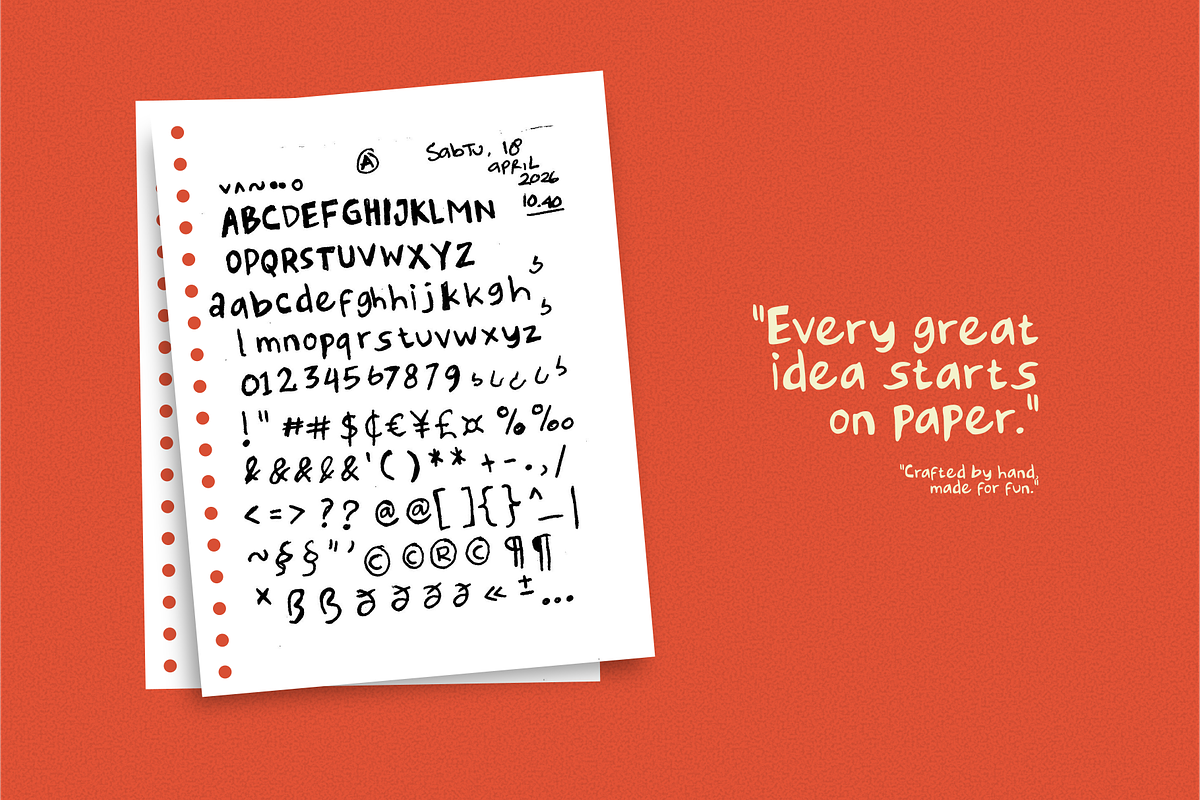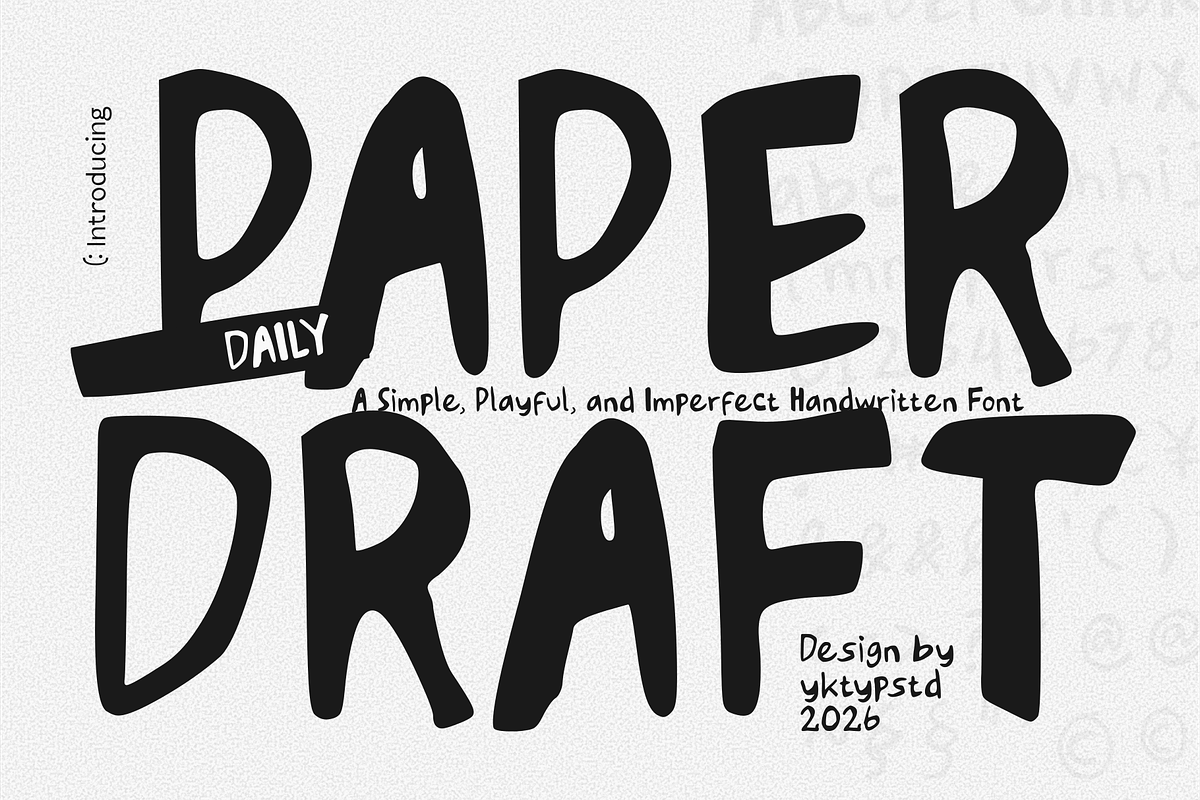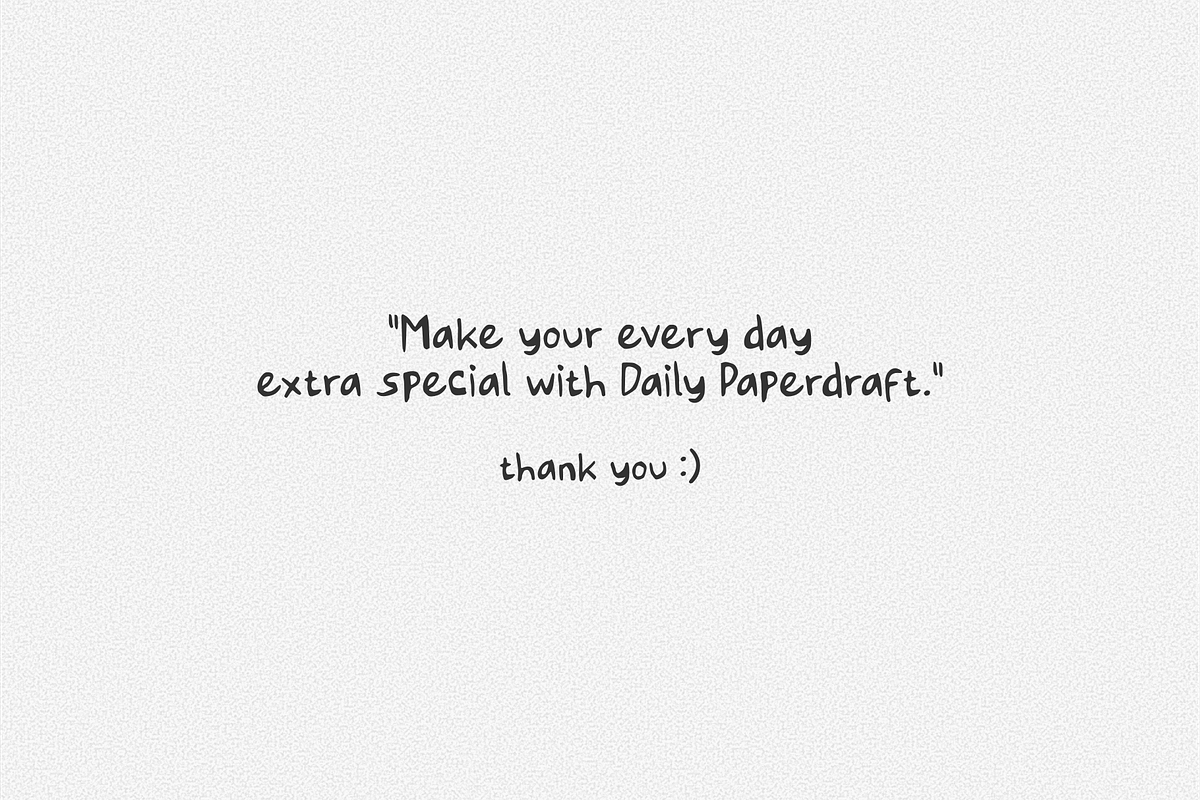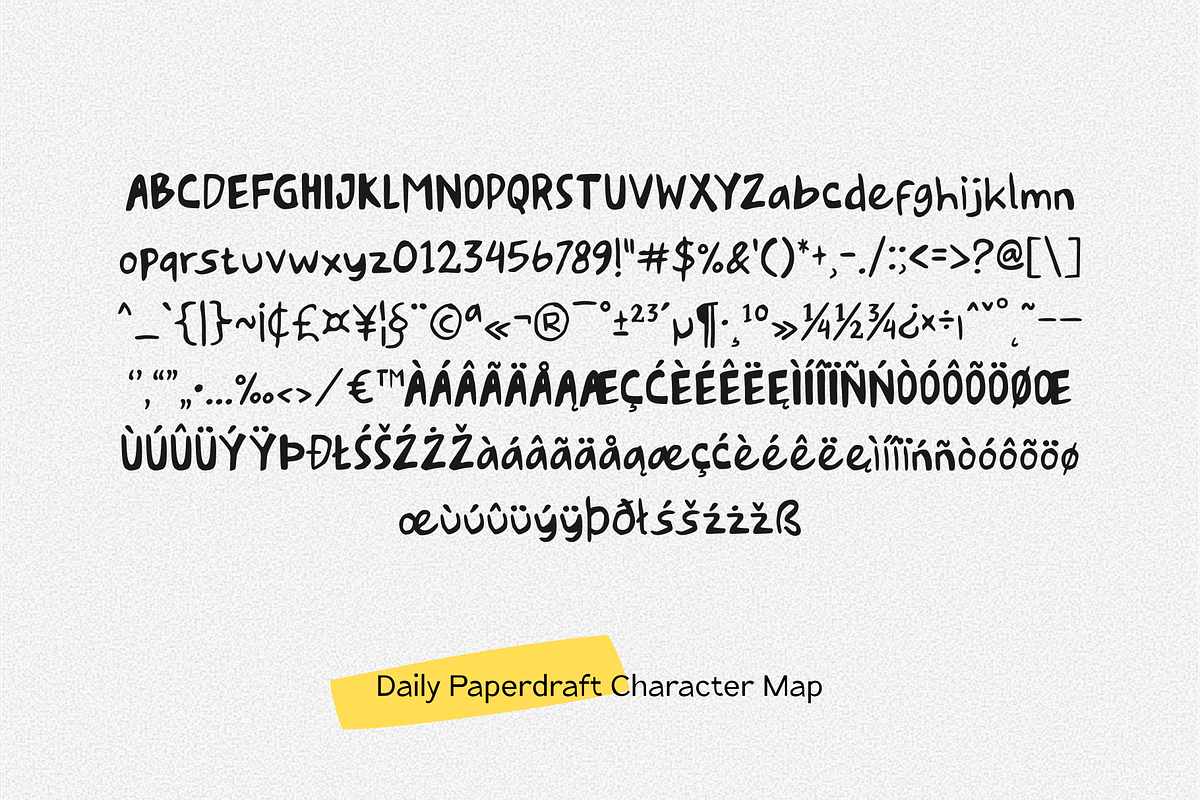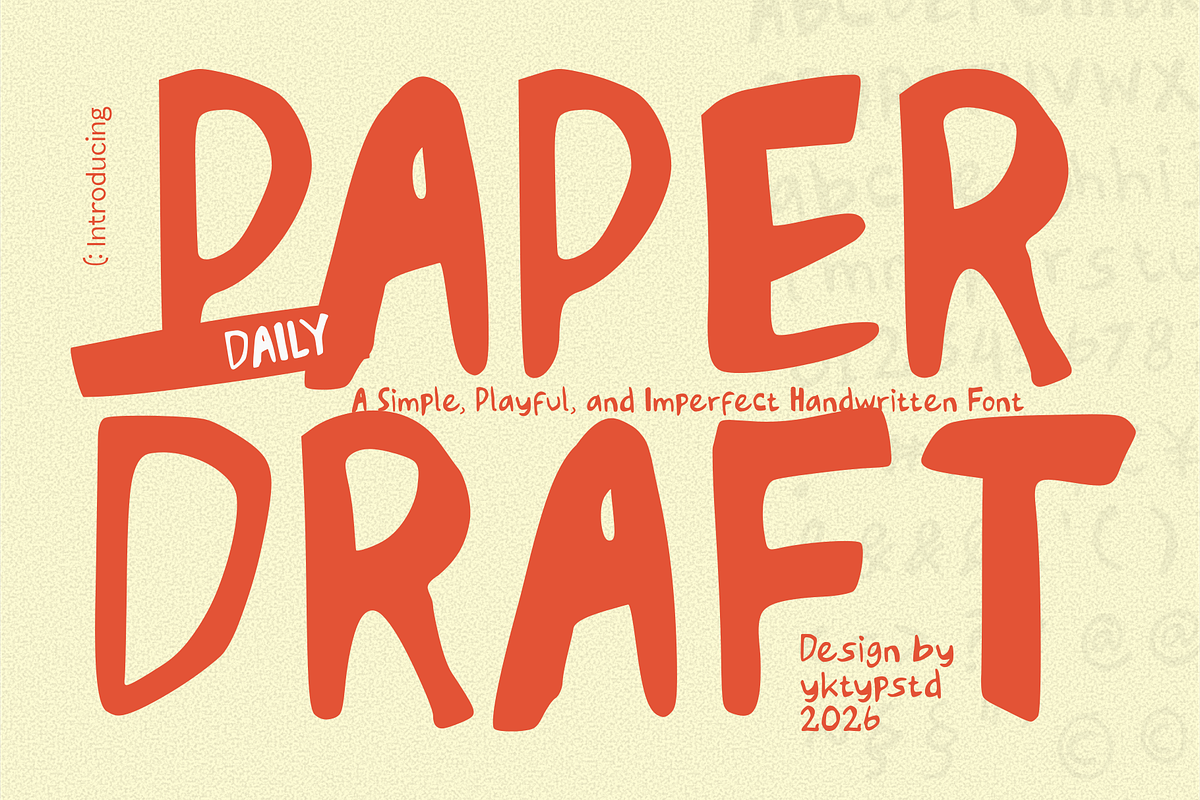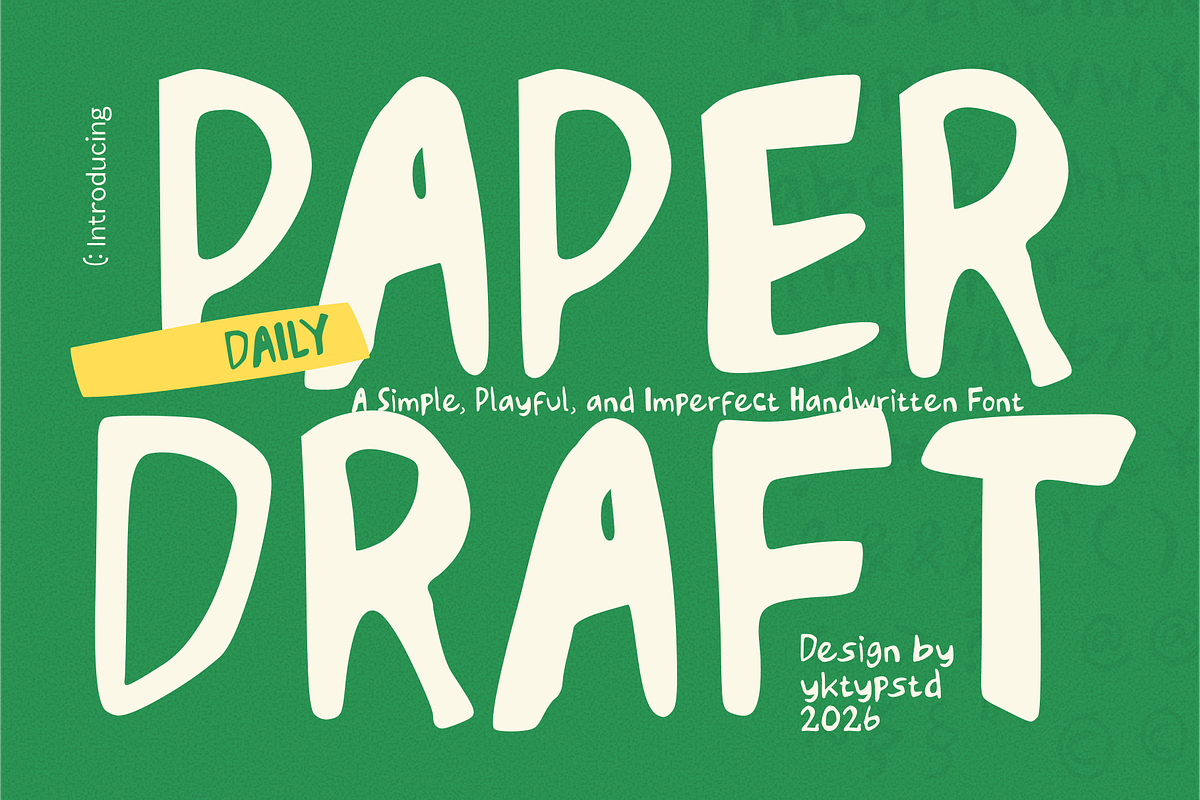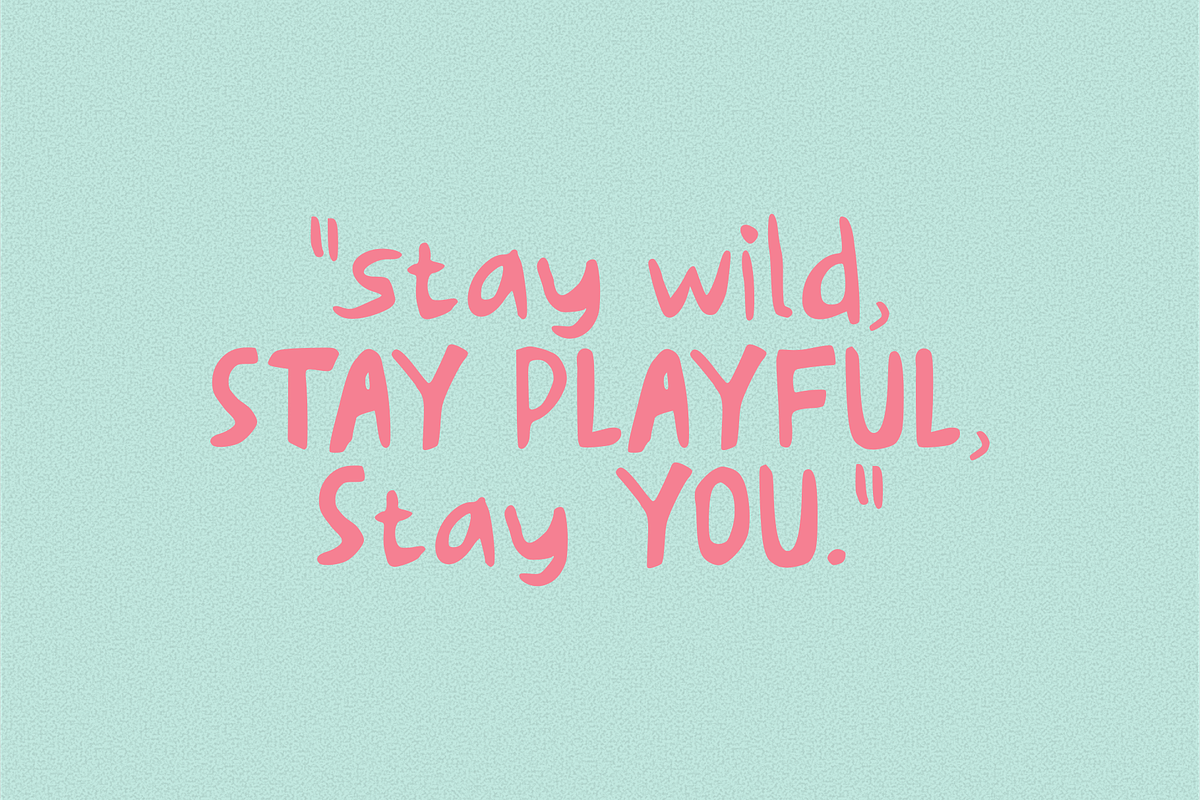
Daily Paperdraft
Daily Paperdraft — A Simple, Playful, and Imperfect Handwritten Font
Introduce Daily Paperdraft, a simply, playfully, and beautifully imperfect handwritten font designed to bring warmth and authentic human touch to your creative projects. Crafted with thick marker strokes and an organic, casual vibe, this typeface celebrates the beauty of spontaneous hand-drawn lines.
Whether you are working on a cozy branding project, eye-catching snack packaging, kids' merchandise, or social media quotes, Daily Paperdraft makes your every day extra special!
Full set of Uppercase & Lowercase letters
Numbers, comprehensive Punctuation, and essential Symbols
Food & Snack Packaging: Give your culinary brand a friendly, appetizing, and approachable look.
Merchandise & Apparel: Perfect for trendy tote bags, casual t-shirts, and custom caps.
Stationery & Planners: Add a warm, handwritten feel to journals, scrapbooks, and greeting cards.
Digital Content: Ideal for Gen-Z targeted social media graphics, blog headers, and YouTube thumbnails.